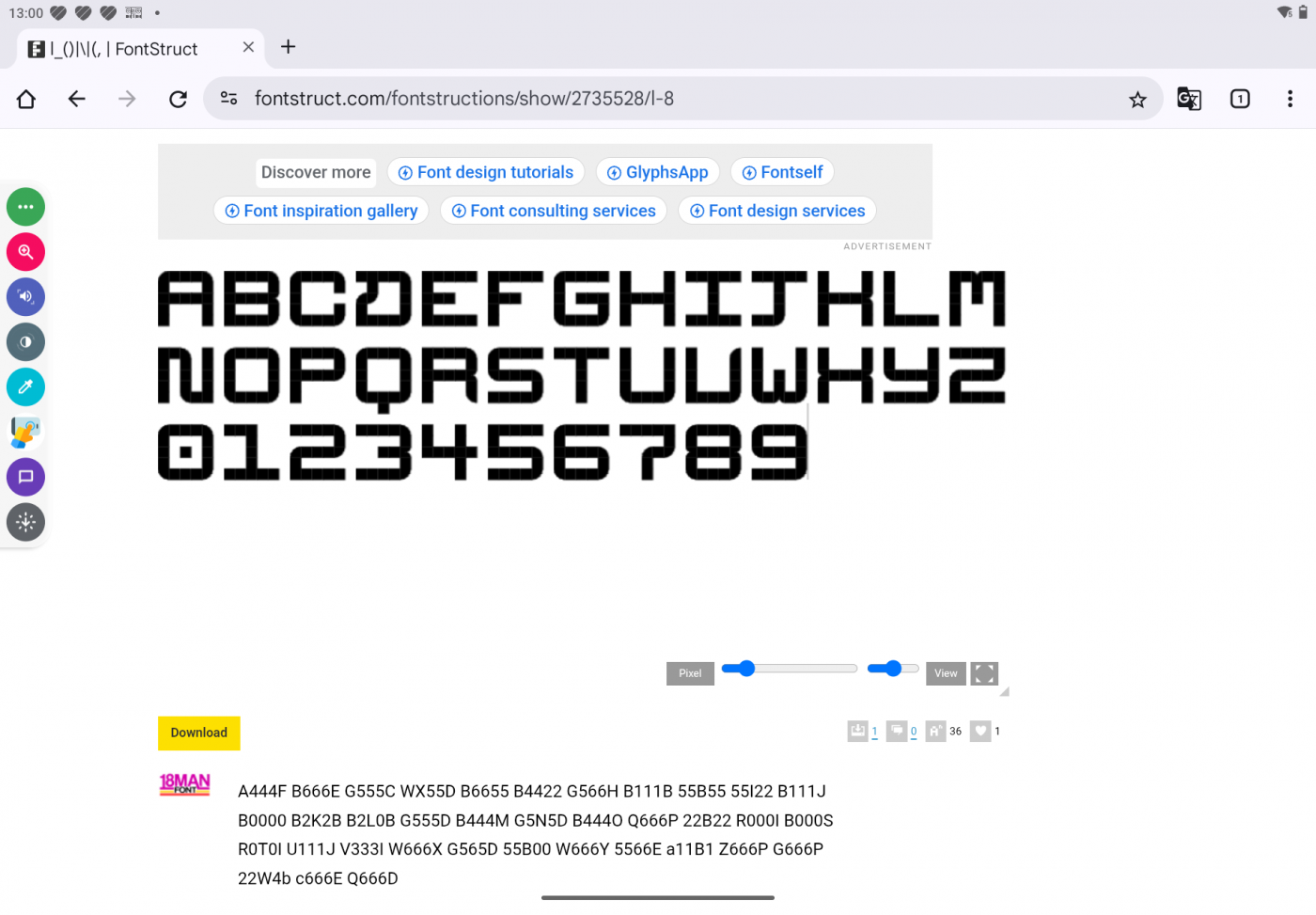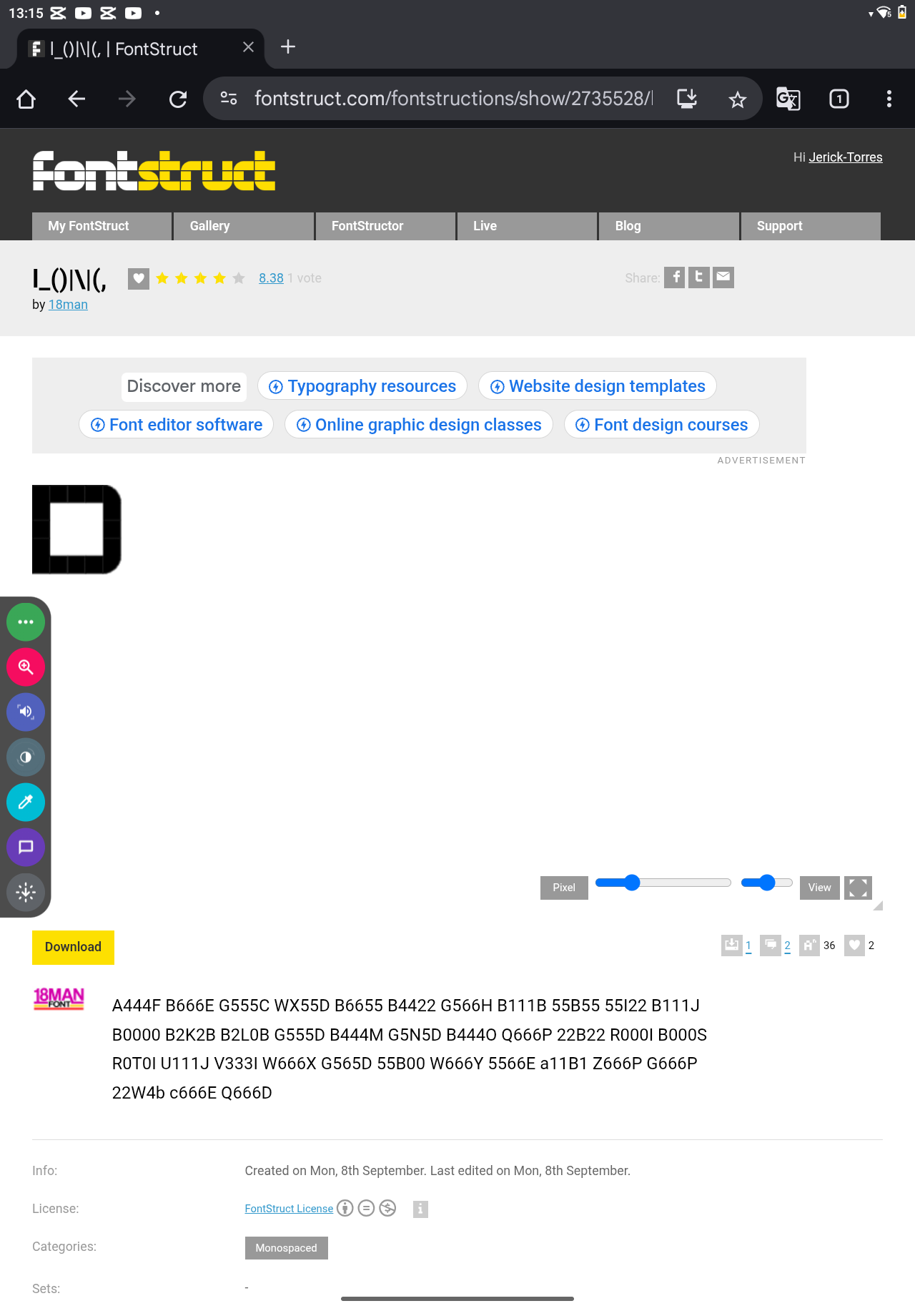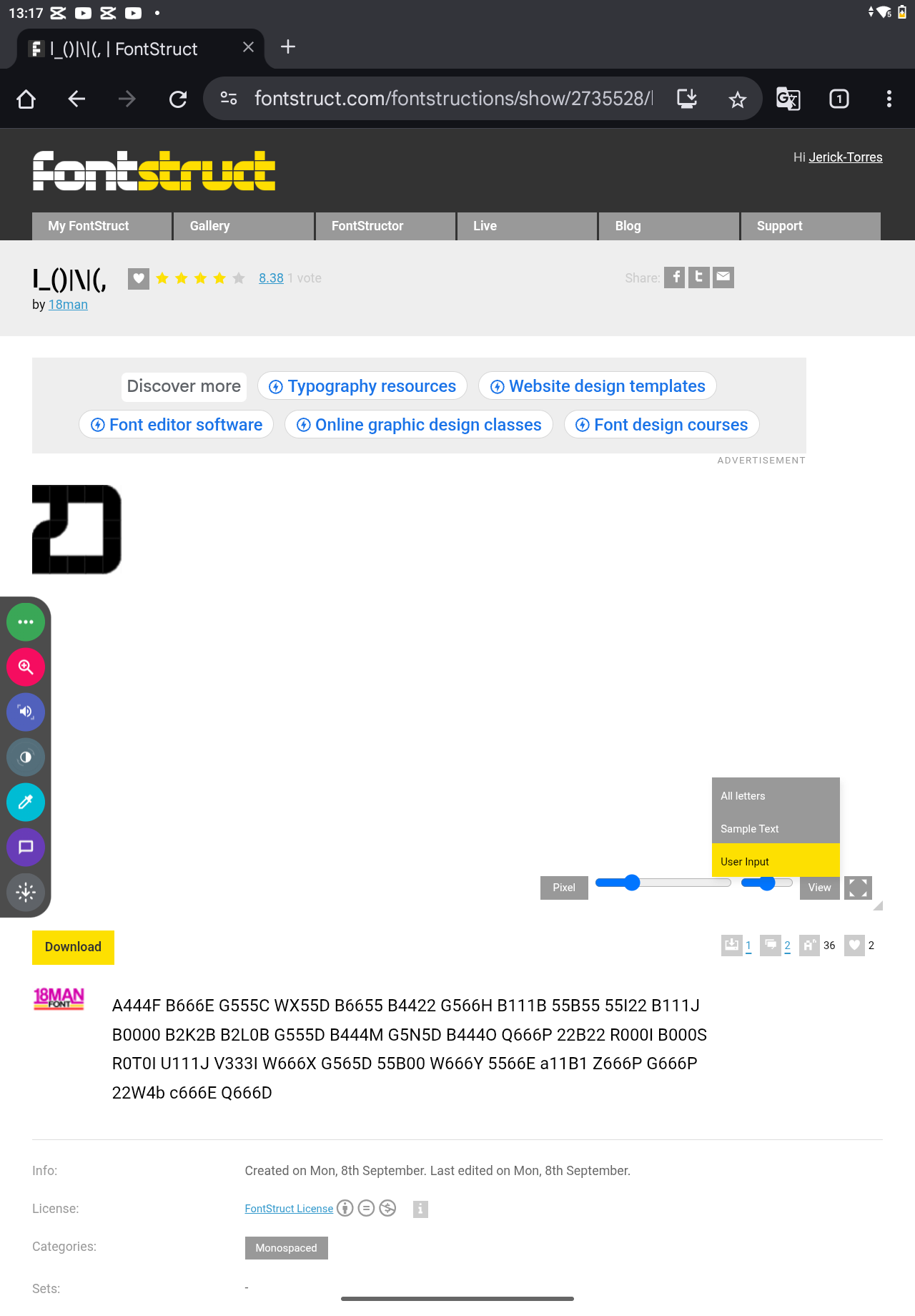
• A444F B666E G555C WX55D B6655 B4422 G566H B111B 55B55 55I22 B111J B0000 B2K2B B2L0B G555D B444M G5N5D B444O Q666P 22B22 R000I B000S R0T0I U111J V333I W666X G565D 55B00 W666Y 5566E a11B1 Z666P G666P 22W4b c666E Q666D
LONG letters
The latin alphabet is funny :•) I mean that it permits this sort of asssembly (and I admit, after figuring out the code I played around)
This D
@18man Your D